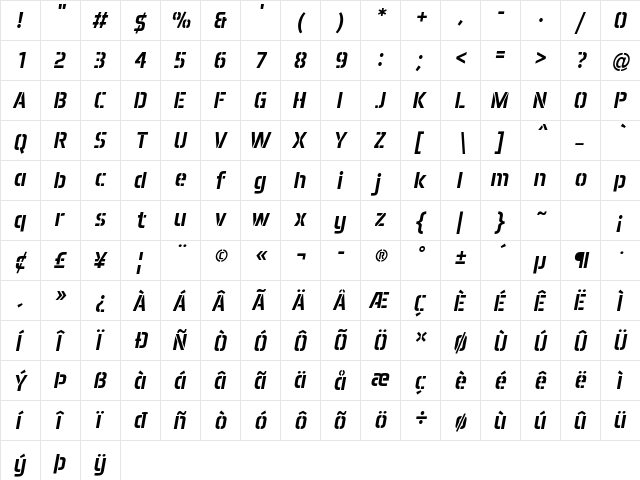
Aero Matics Stencil Italic
Design Context for Aero Matics Stencil Typeface
Aero Matics Stencil borrows the utilitarian aesthetic of stencil lettering, with its characteristic cutaways and no-frills construction lending an industrial edge. Its italic angle brings a sense of urgency and motion to the letterforms.
A strong choice for packaging that needs edge, warehouse aesthetics, and rough-and-ready visual identities.
Pro Tip: Use Aero Matics Stencil at large sizes on packaging, posters, or apparel where the stencil cutaways read clearly. Avoid small sizes where those gaps become visual noise.